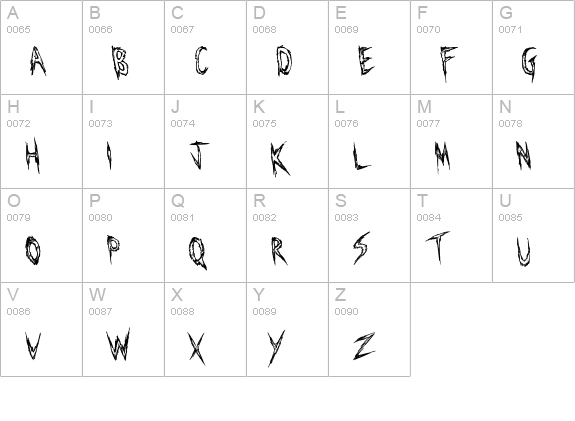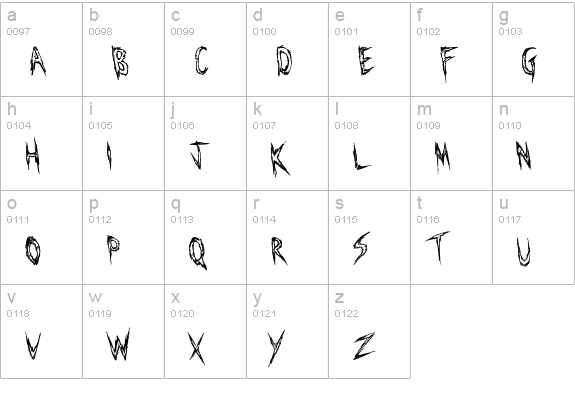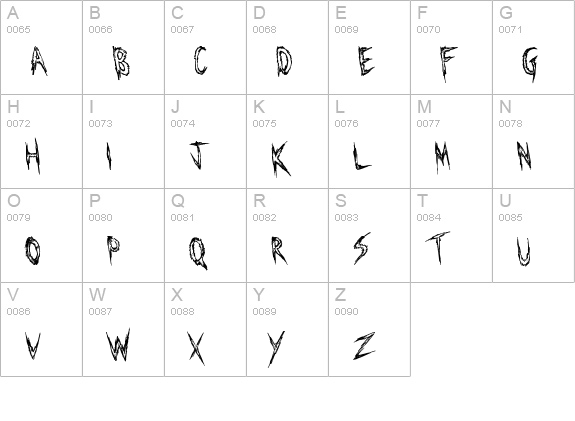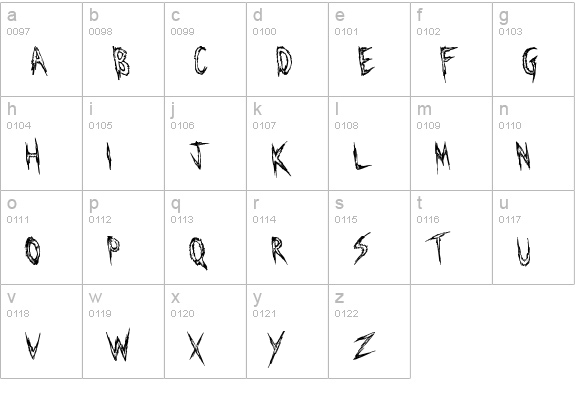
Introducing Manhunt, a captivating and adventurous typeface that will ignite your creative spirit. With its bold and edgy design, Manhunt is the perfect font to add a touch of excitement to your projects. Whether you're working on a poster, logo, or branding materials, this unique typeface will make a lasting impression. Manhunt is not just any ordinary font; it is a free font that is freely available to download at FontsMarket.com. This means that you can enhance your designs without breaking the bank. With Manhunt, you have the freedom to create stunning visuals without worrying about licensing fees or restrictions. Crafted with meticulous attention to detail, Manhunt features strong, sharp lines and sleek curves that exude power and determination. Its versatile nature allows it to adapt seamlessly to various design styles, from modern and futuristic to gritty and urban. The wide range of weights and styles available ensures that Manhunt can be used for both headlines and body text, providing endless possibilities for your design projects. Manhunt is more than just a font; it is a statement. It commands attention and demands to be noticed. Its bold presence on the page will captivate your audience and leave a lasting impression. So, if you're ready to take your designs to the next level, download Manhunt for free at FontsMarket.com and unleash your creativity today.